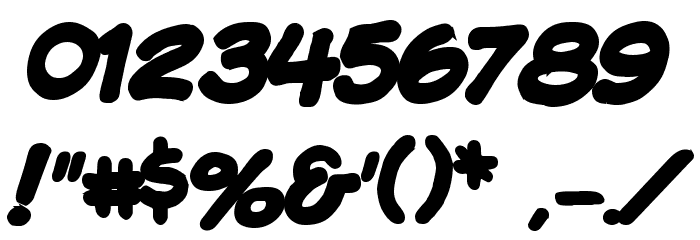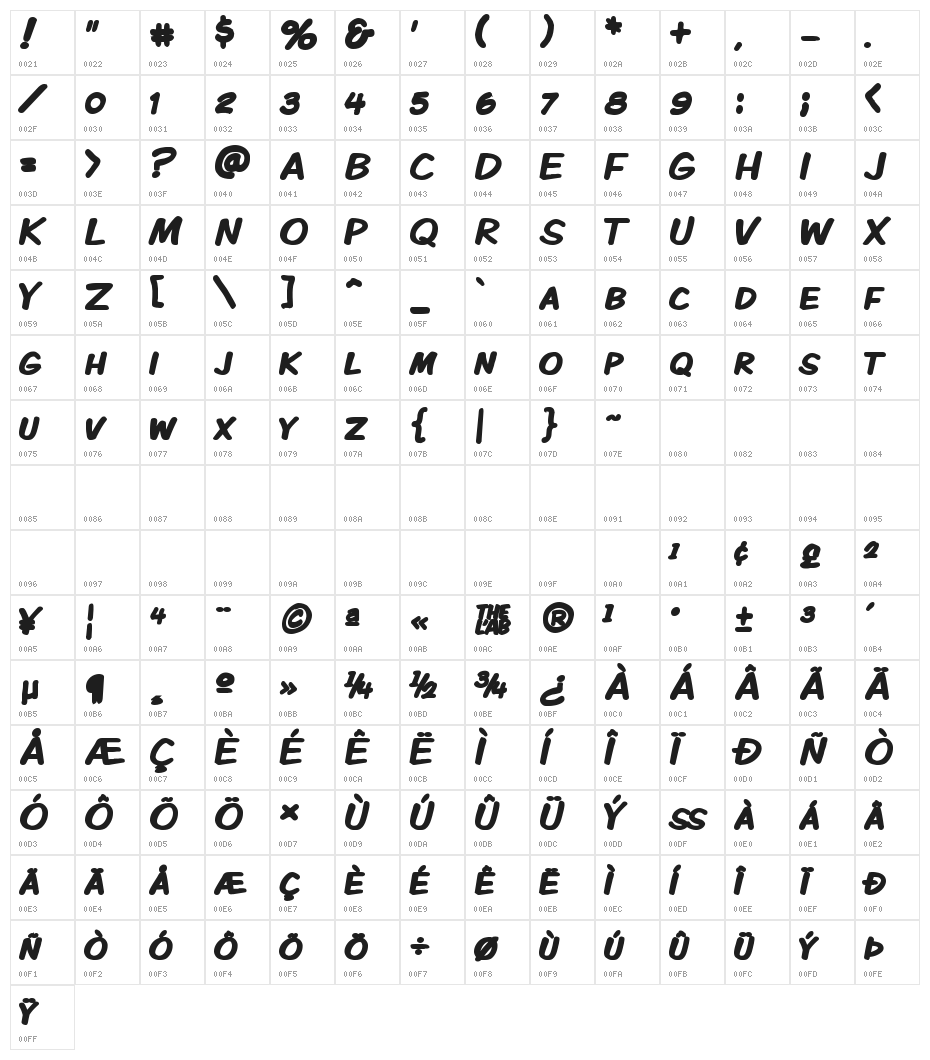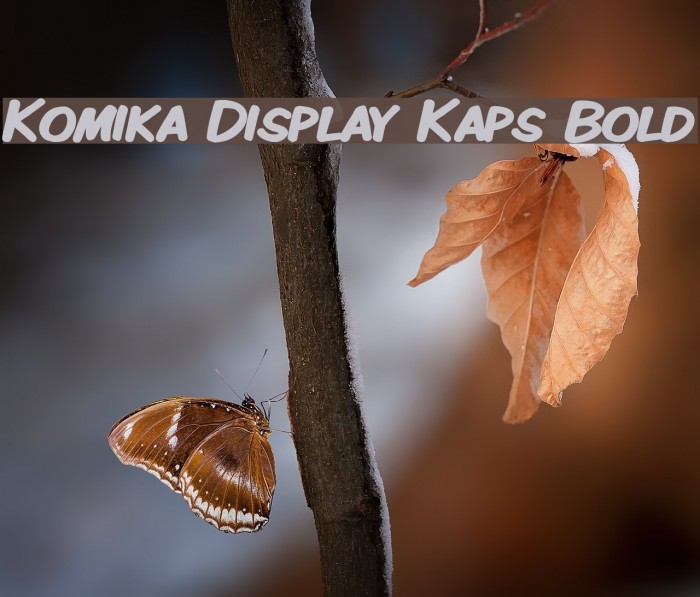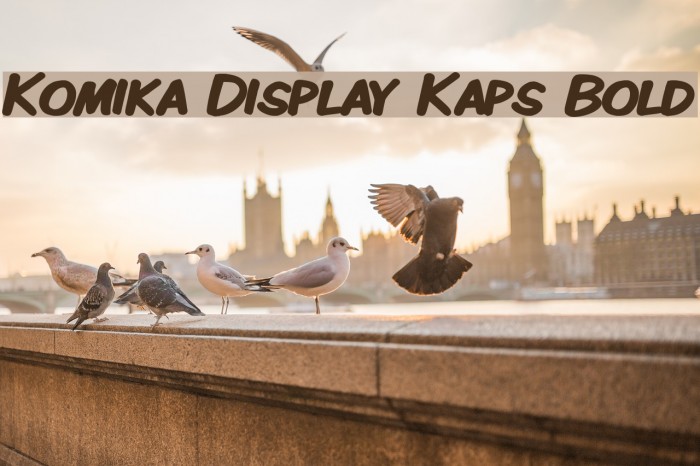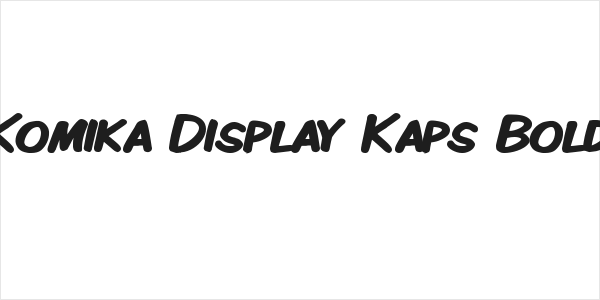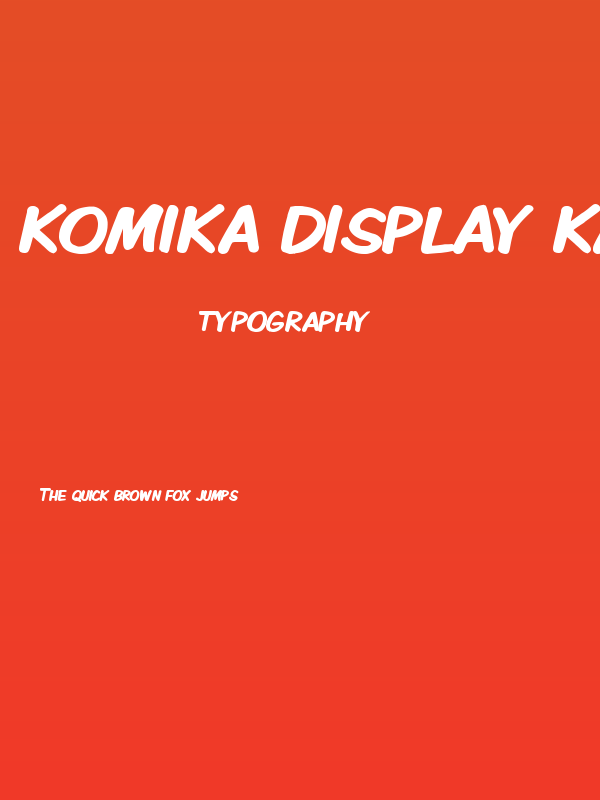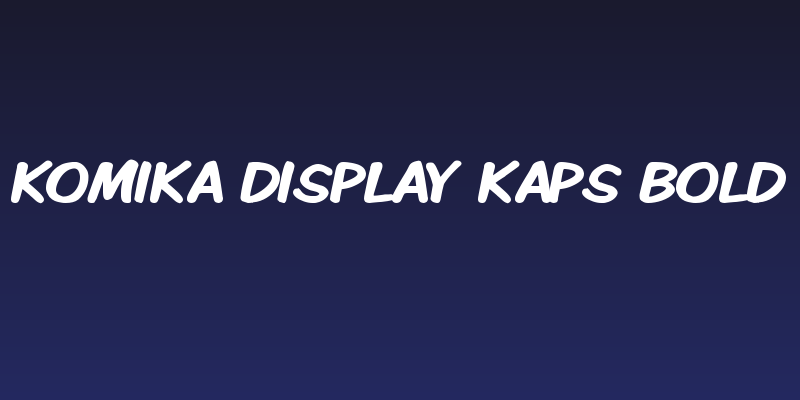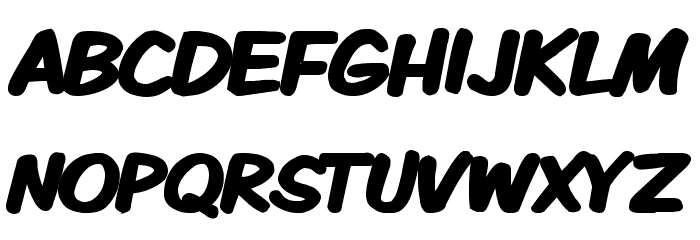
Komika Display Kaps Bold Font
Komika Display Kaps Bold Description
This font features a bold, playful style with rounded edges and a hand-drawn appearance. The characters are thick and slightly slanted, giving a dynamic and energetic feel. The uppercase and lowercase letters maintain a consistent weight, contributing to a cohesive look. The numbers and special characters follow the same bold and rounded design, ensuring uniformity across all glyphs. This font's informal and friendly style makes it suitable for projects that require a fun and approachable aesthetic.
Overall StylePlayful, Energetic
Proposed ProjectsIdeal for comic books, children's books, playful branding, and informal event posters.